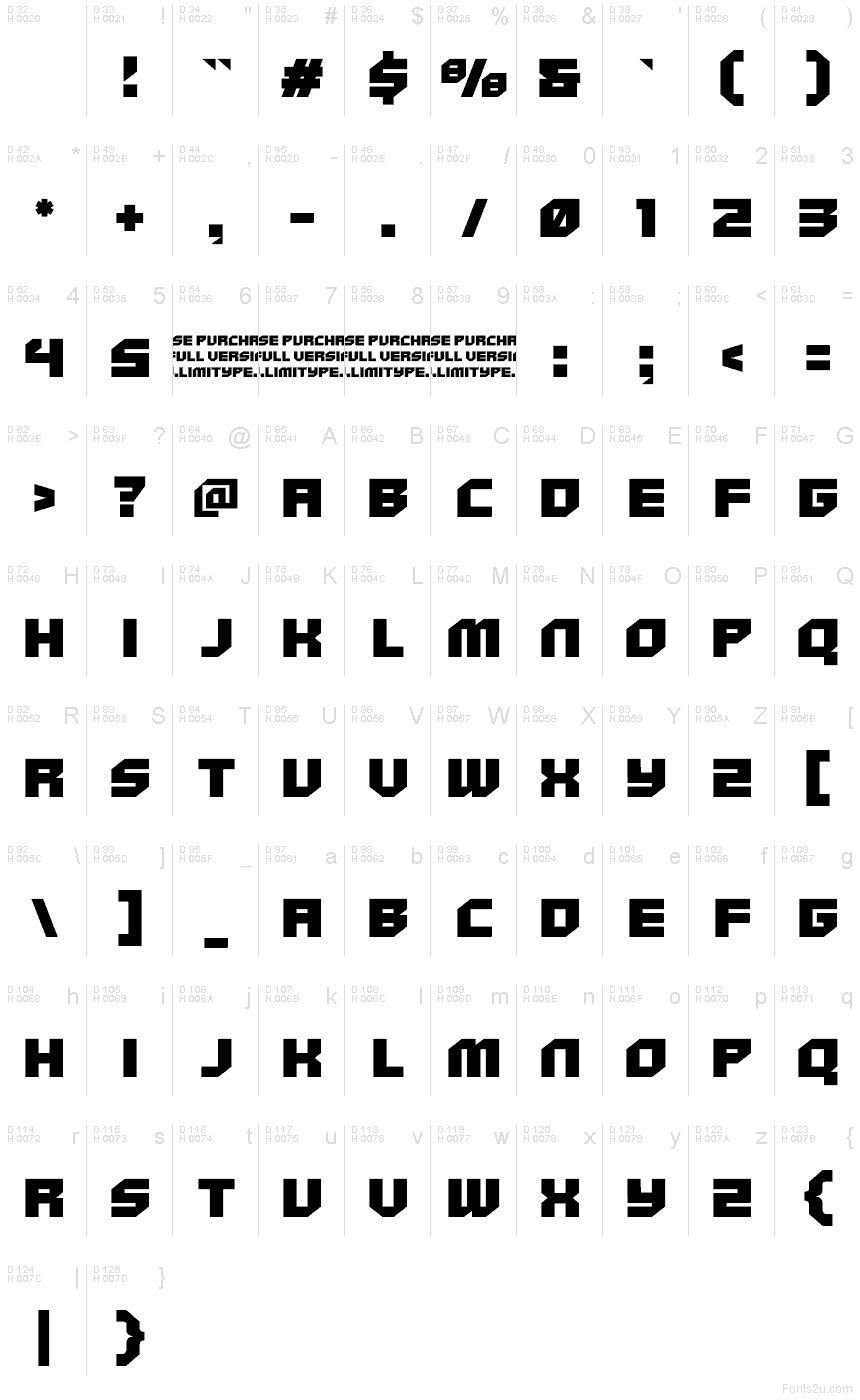
Cyberform Demo
Cyberform font by Limitype is a futuristic display typeface, inspired by digital aesthetics. Its expanded width and bold weight make its geometric modern appeal more prominent. A tech-feel is present in this robust font, and an immediate modernization will come with its use.
With Cyberform, dive into game design elements from titles to interface sections. Brand anything related to technology or digitize your branding project ideas by choosing this free font. Websites, apps, posters and packaging can get along well with it too!